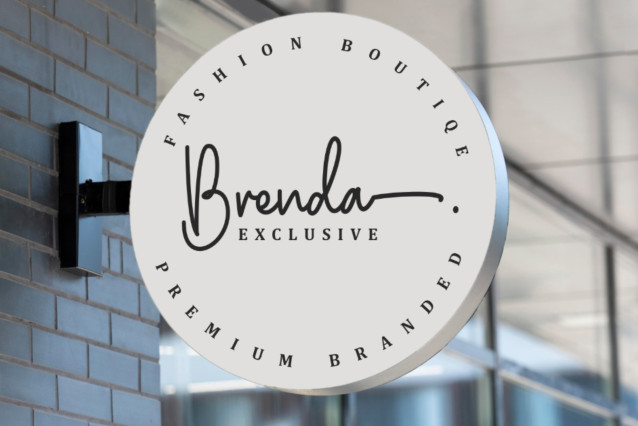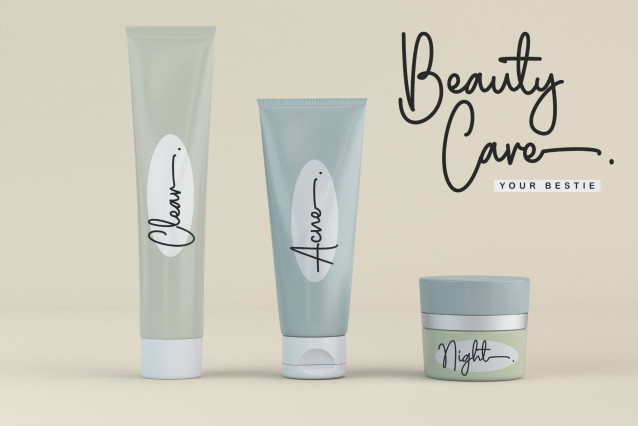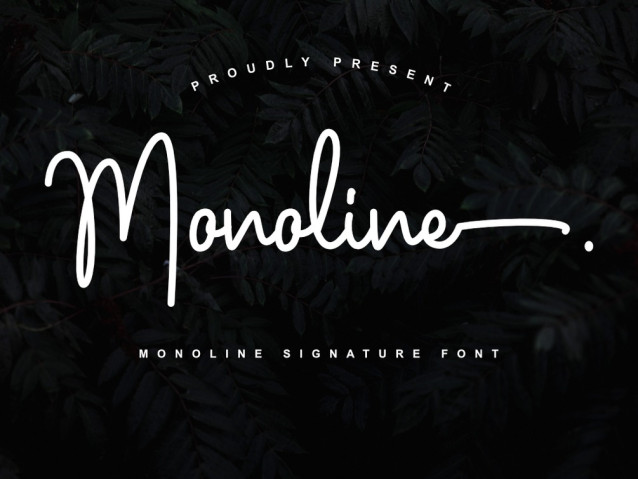
Monoline Script Font
Monoline Script Font is a single-line script font designed to evoke warmth, nostalgia, and minimalist charm. With its consistent stroke weight and flowing cursive style, Monoline brings a sense of refined femininity to any design. Perfect for branding that seeks to feel personal yet polished.